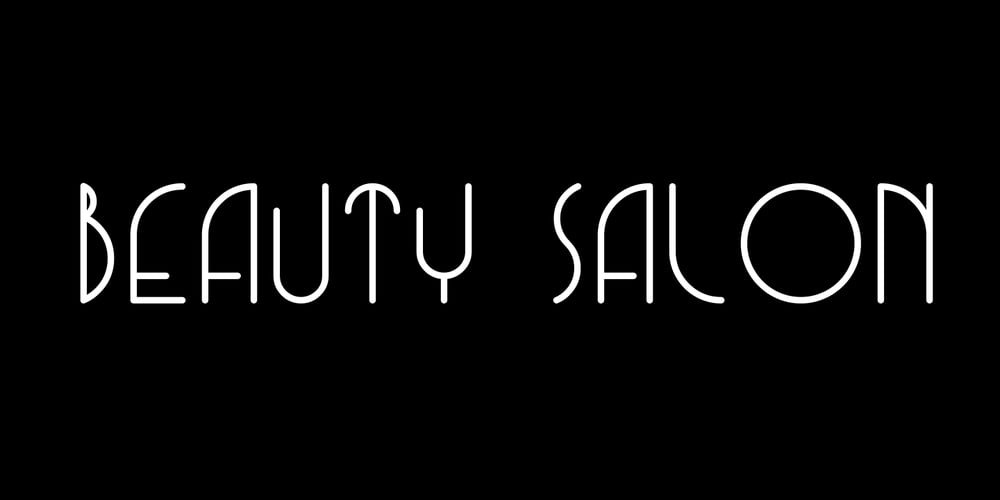
Beauty Salon Font Family was designed by Thomas Käding and published by Thomas Käding. Beauty Salon contains 1 styles and family package options. Inspired by the sign outside a beauty salon, it is an art-deco all-caps font. This font will NOT make you more attractive to the opposite sex.